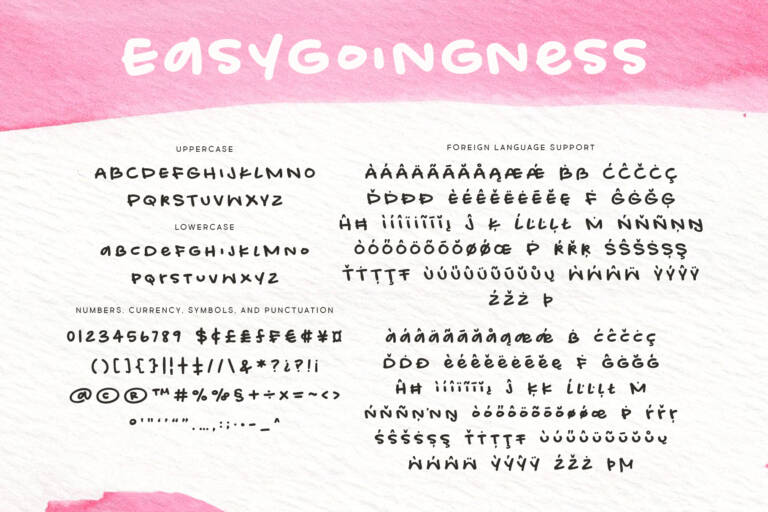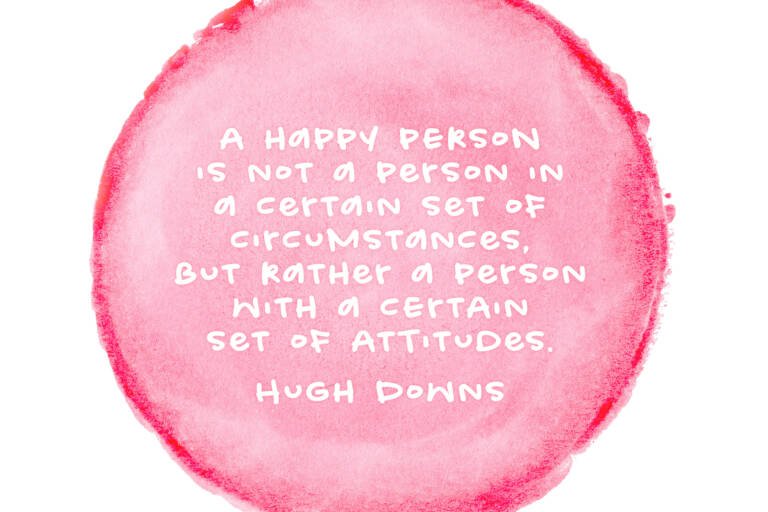
Easygoingness Font
The Easygoingness font is a relaxed & nonchalant handwritten font. It’s mostly mono-height which means it’s great for multi-line content. You can also mix and match upper and lowercase as you see fit. 🙂
The Easygoingness font is great for evoking a casual, approachable atmosphere. Easygoingness would work well for comics, cards, logos, friendly workplace signage, or any other graphic design projects with a laid-back feel.